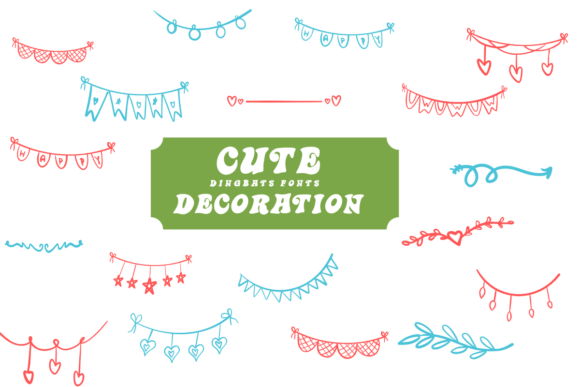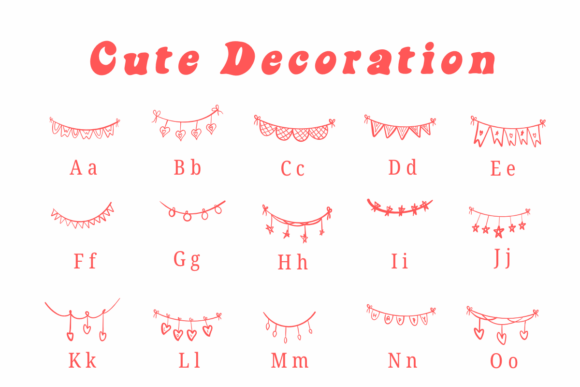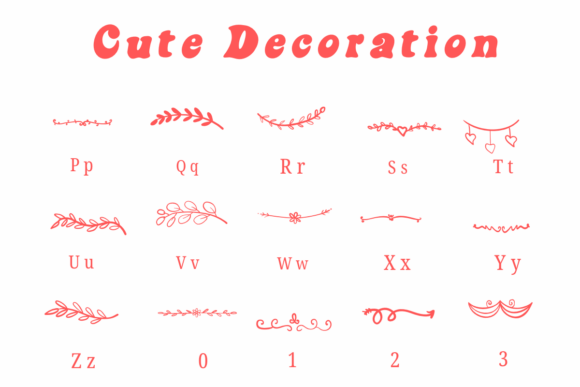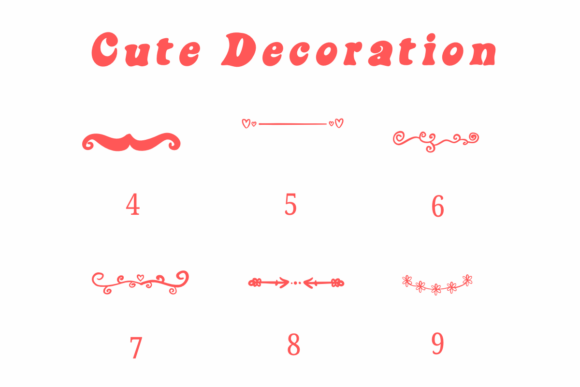
About the Cute Decoration Font Font
Make a bold statement with Cute Decoration Font Font, a powerful and memorable font. Cute Decorations is a dingbats font with a festive theme. This font can enhance your creative projects such as wedding invitations, DIY, crafts, decorations, logos, and many other creative ideas.
Its playful, whimsical nature makes it ideal for projects requiring a lighthearted touch, such as children’s books, party invitations, or branding for businesses focused on fun and creativity. It excels in short bursts of text, within logos, or as decorative elements on packaging or social media graphics. However, its decorative style is unsuitable for body text or situations demanding high readability, like website UI or lengthy documents.
Cute Decorations pairs well with clean sans-serif fonts like Open Sans for a balanced contrast, or a more elegant serif such as Lora for a touch of sophistication. For a bolder look, consider pairing it with a geometric sans-serif like Montserrat. Avoid pairing it with other highly decorative or script fonts, as this would create visual clutter.
The font’s overall personality is undeniably cheerful and friendly. It evokes feelings of celebration and lightheartedness, making it a strong choice for projects aiming for a warm and inviting aesthetic.